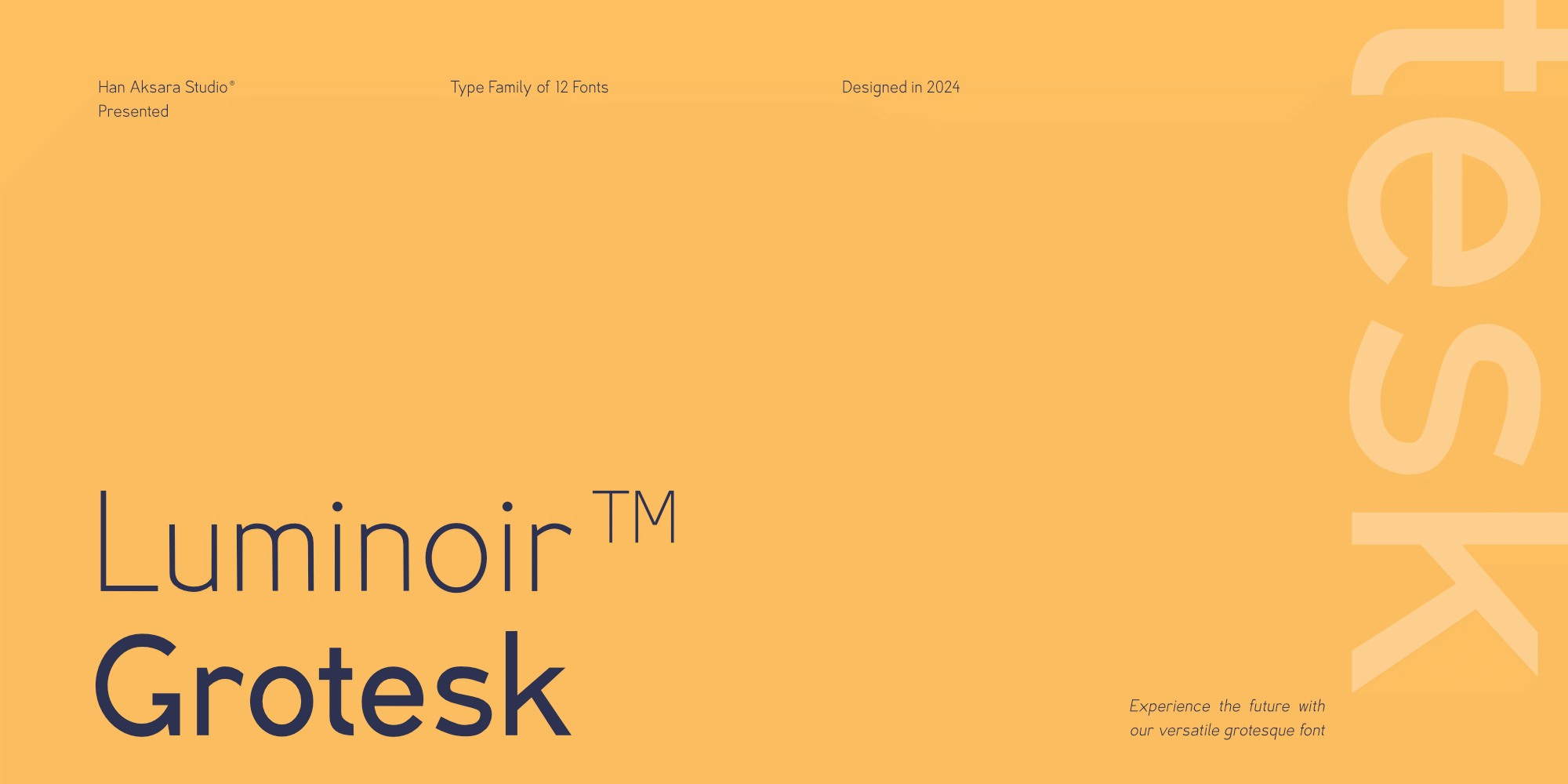
This sophisticated typeface excels in high-end fashion branding, luxury product packaging, premium cosmetics labels, upscale hotel signage, exclusive jewelry catalogs, fine art gallery exhibitions, boutique retail displays, and elite corporate communications. Its refined elegance makes it perfect for projects requiring luminous sophistication and premium positioning.
HA Luminoir Sans Font generates excitement through its radiant clarity that illuminates every design with understated luxury. The font's perfectly balanced proportions and luminous character create an atmosphere of refined elegance that captivates discerning audiences. Its meticulously crafted letterforms deliver exceptional readability while maintaining distinctive sophistication that elevates brands to premium status and creates lasting impressions.
The HA Luminoir Sans Font family encompasses comprehensive weight variations including ultra-light, light, regular, medium, bold, and black options, complemented by matching italic styles. Each family member preserves the signature luminous quality while offering unique characteristics for different design applications. This extensive range enables designers to create sophisticated typographic systems that maintain consistency across complex brand ecosystems.
The HA Luminoir Sans Font Free Download offers designers access to premium typography that transforms ordinary projects into extraordinary experiences. Its luminous character and refined details make it ideal for creating distinguished luxury brands and sophisticated communications that command attention. Whether developing high-end retail identities, designing premium product launches, or crafting exclusive marketing materials, this font provides the elegant appeal and visual refinement essential for targeting affluent markets. The font's timeless luminosity ensures enduring sophistication across all premium applications.